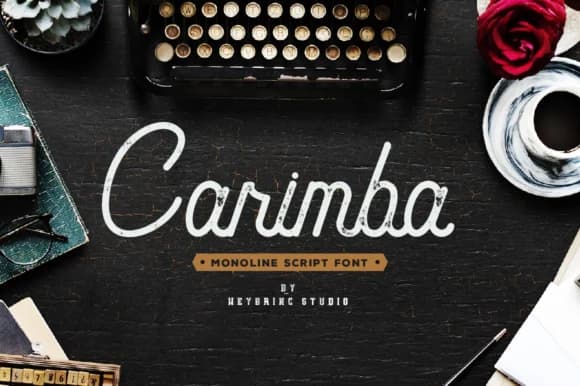
About Carimba Font
Carimba by heybrinc.studio is a monoline script rooted in the visual language of vintage label design and mid-century aesthetics. This flowing typeface balances nostalgic charm with contemporary elegance, delivering a handcrafted sensibility that appeals to designers seeking authentic character without compromise on legibility. The consistent stroke weight, a defining feature of monoline scripts, ensures that Carimba maintains clarity across various applications while preserving the personality that makes script fonts so compelling. Whether rendered at headline scale or supporting smaller text, the letterforms retain their distinctive warmth and approachable presence. Carimba excels in specialized design contexts where personality matters. Vintage-inspired product labels and artisan packaging benefit from its nostalgic letterforms and refined sophistication. Wedding invitation suites gain genuine warmth through its expressive yet elegant voice, while hand-lettered logo designs capture attention with confidence. Coffee shop menus, retro branding applications, and boutique signage all find natural homes within Carimba's character-driven aesthetic. The monoline structure delivers consistent performance across print and digital mediums, making it a practical choice for designers transitioning work between formats. Its reliability and distinct personality make it a worthwhile addition to any type library. Access Carimba Font through Creative Fabrica to begin incorporating this distinctive script into your design work.
Carimba Font is a script font that shines as a display or heading face. Pair it with a clean sans-serif or serif font for body text — the contrast creates a clear hierarchy while the two styles stay balanced and easy to read.